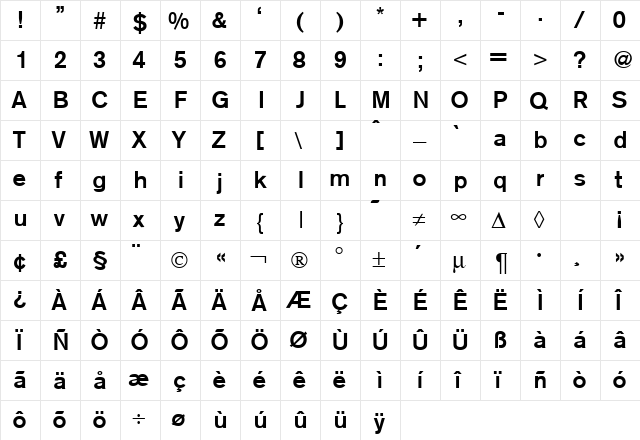
AkzentMedium Regular
Design Context for AkzentMedium Typeface
AkzentMedium takes a measured approach to typography — its balanced proportions and neutral character make it a reliable workhorse for both digital and print work.
Pro Tip: Use AkzentMedium in both headline and body roles to test its range before committing to a single application.